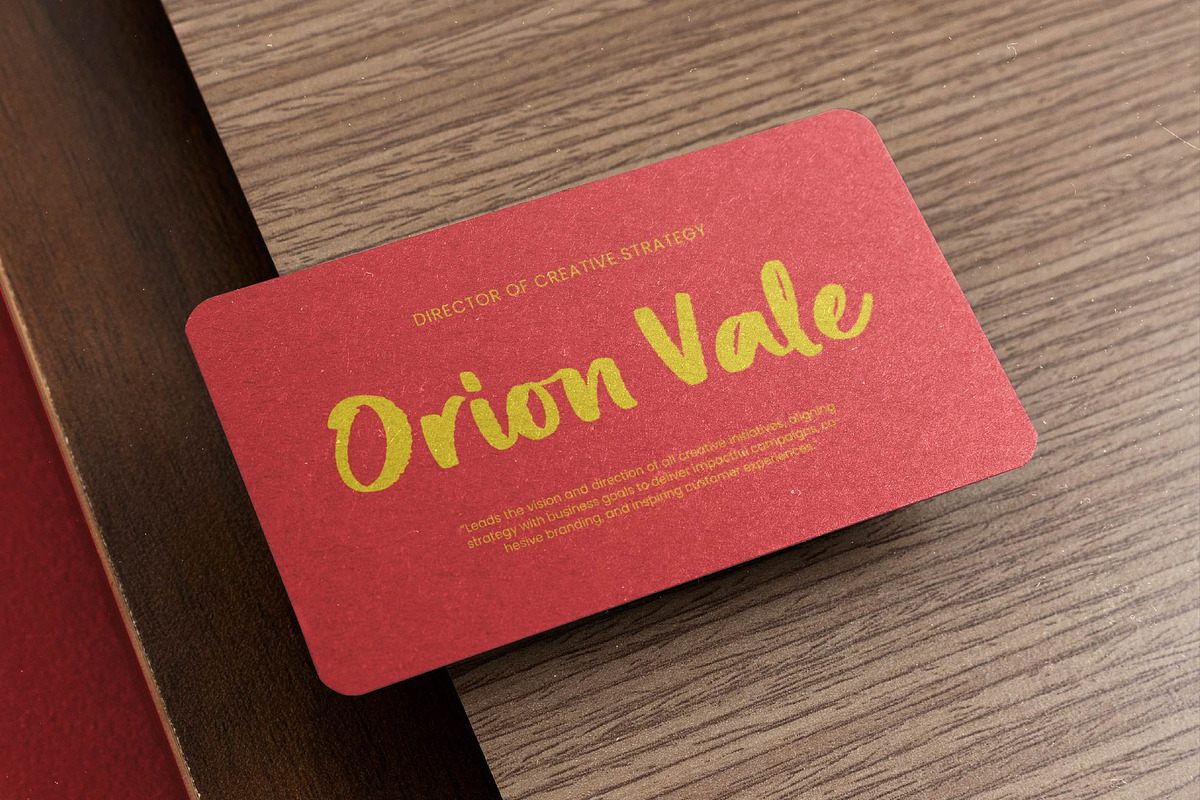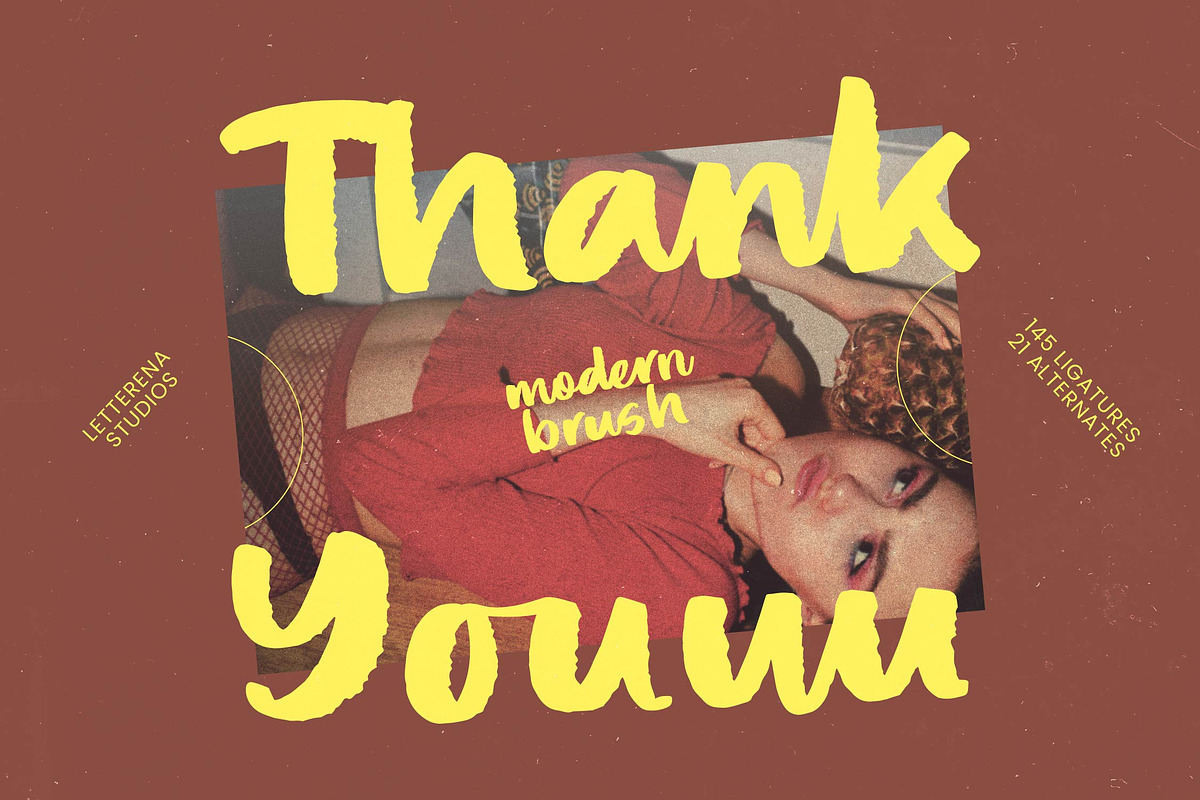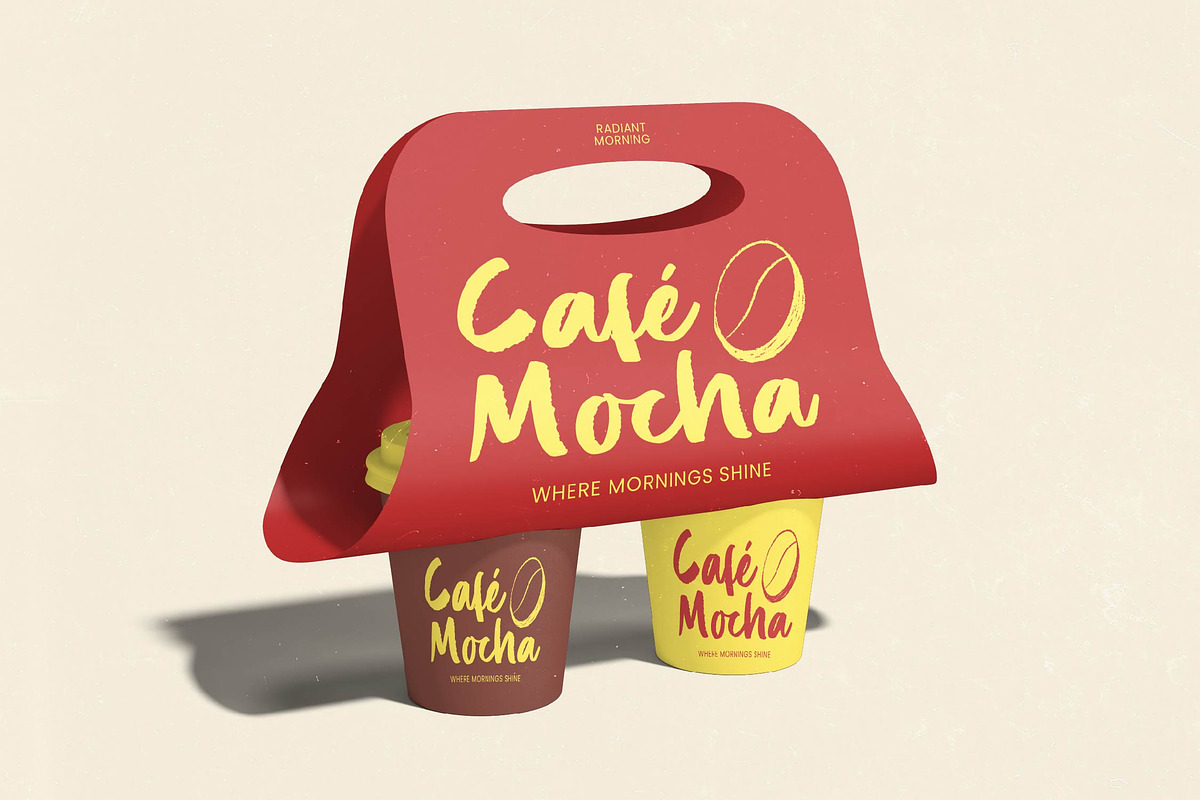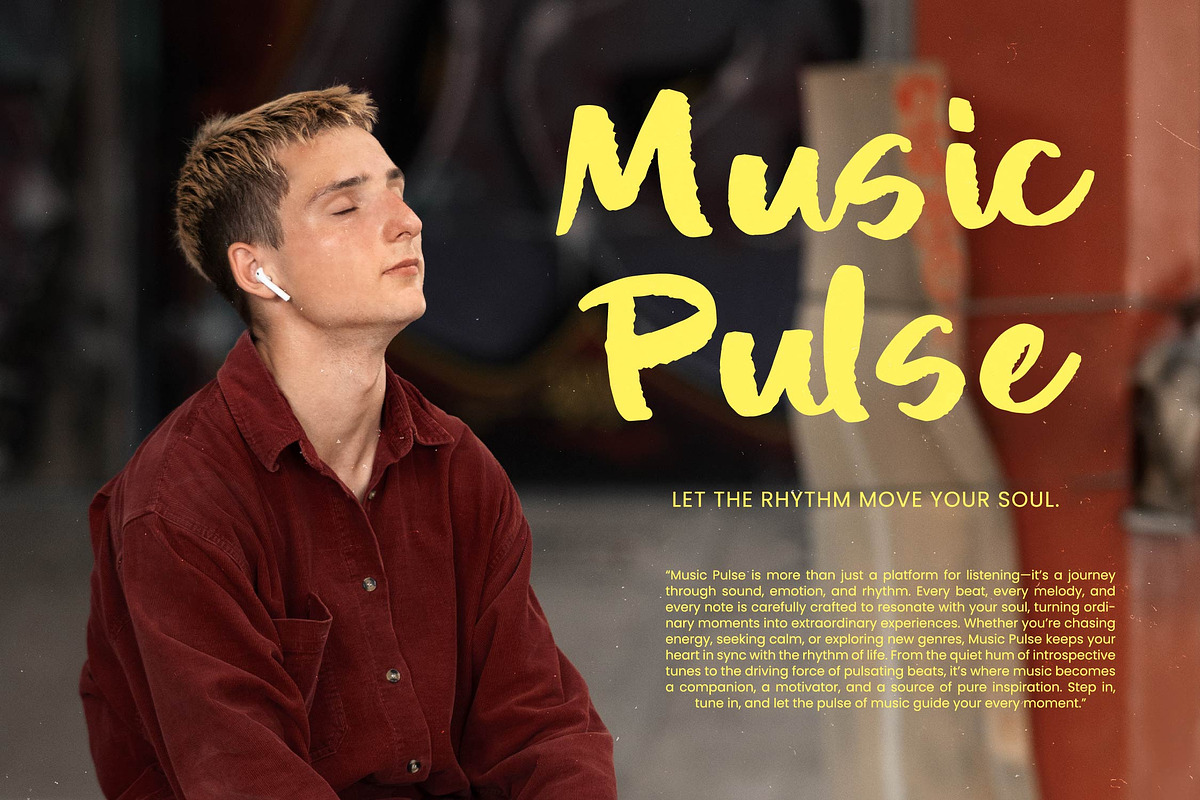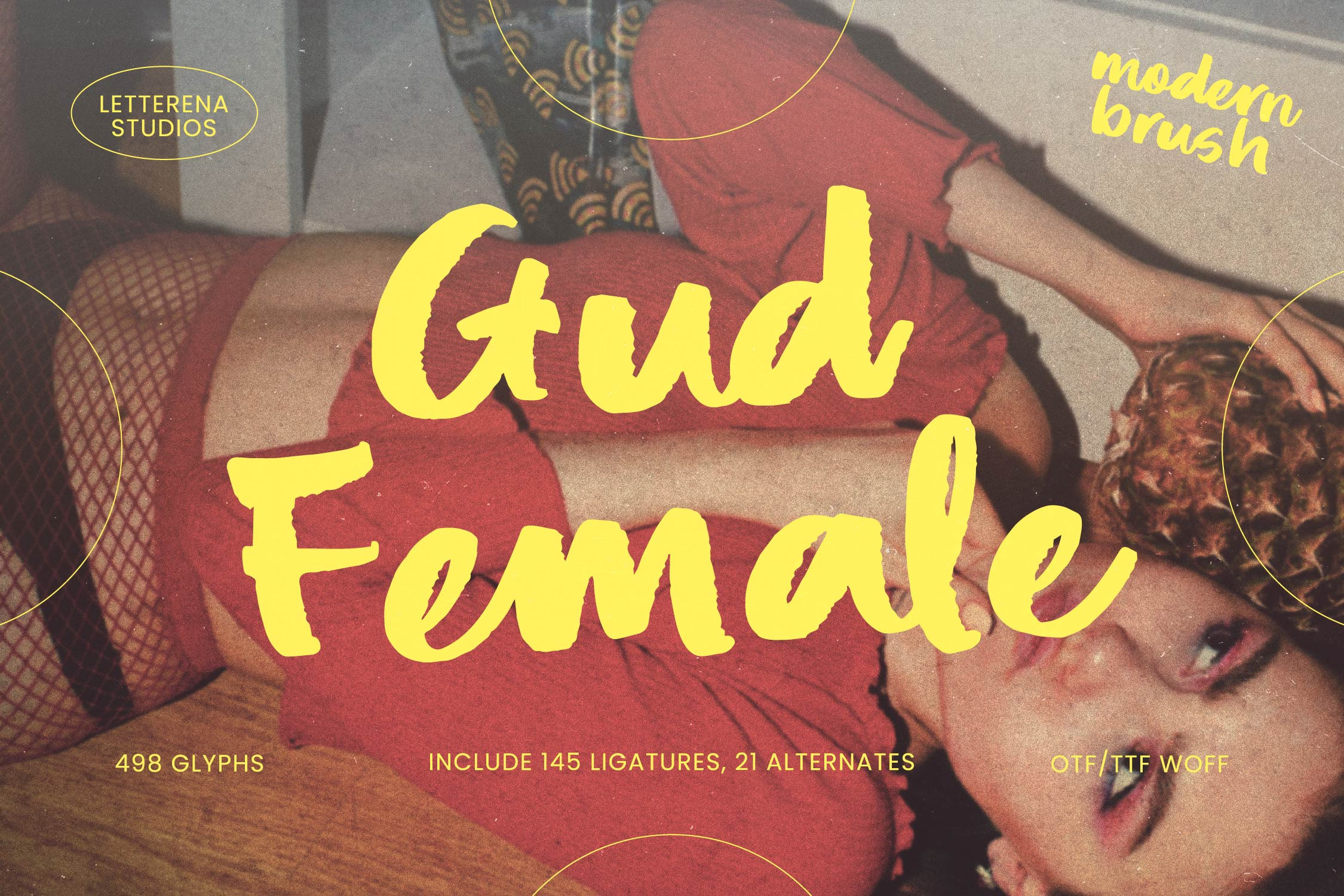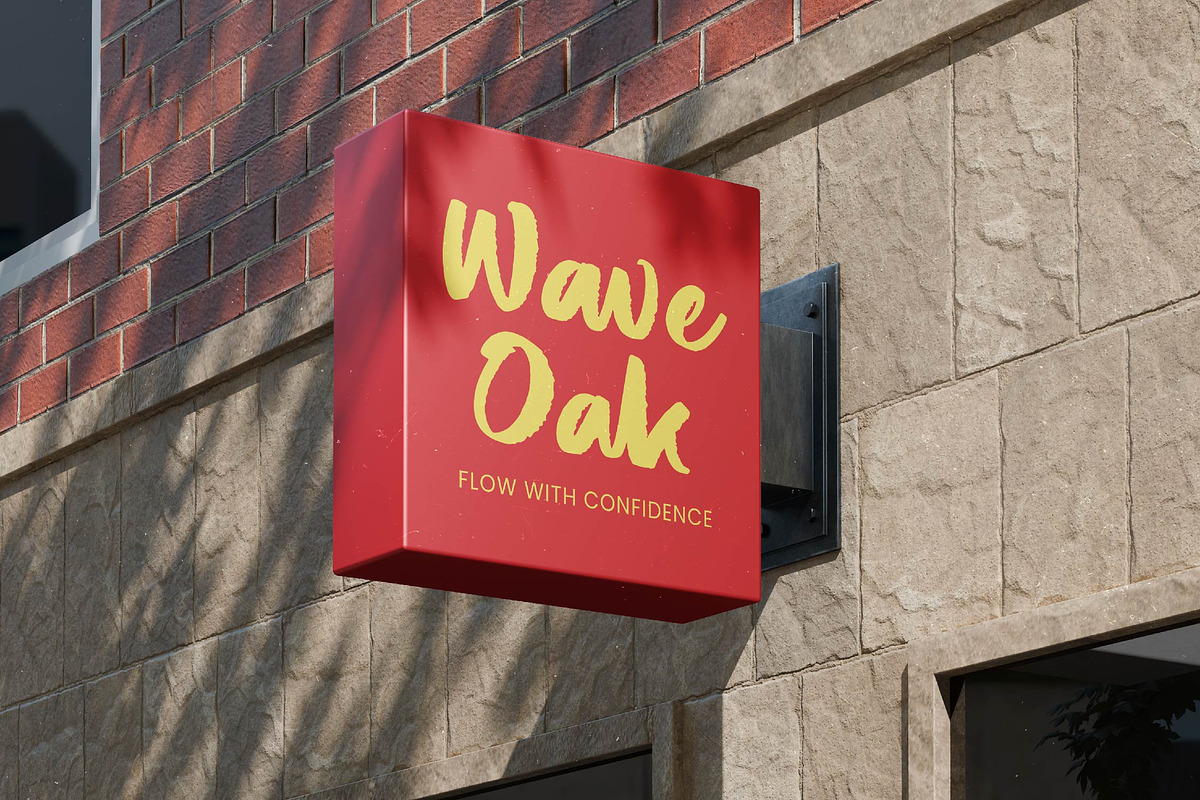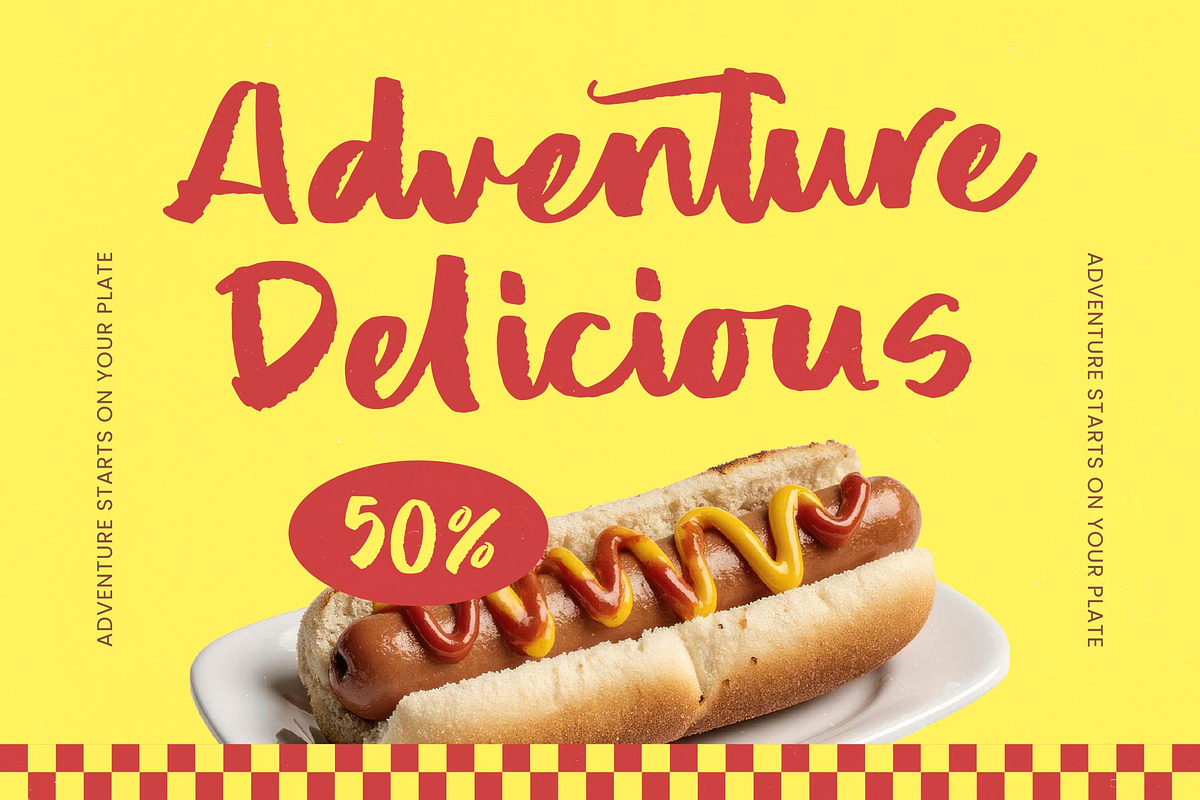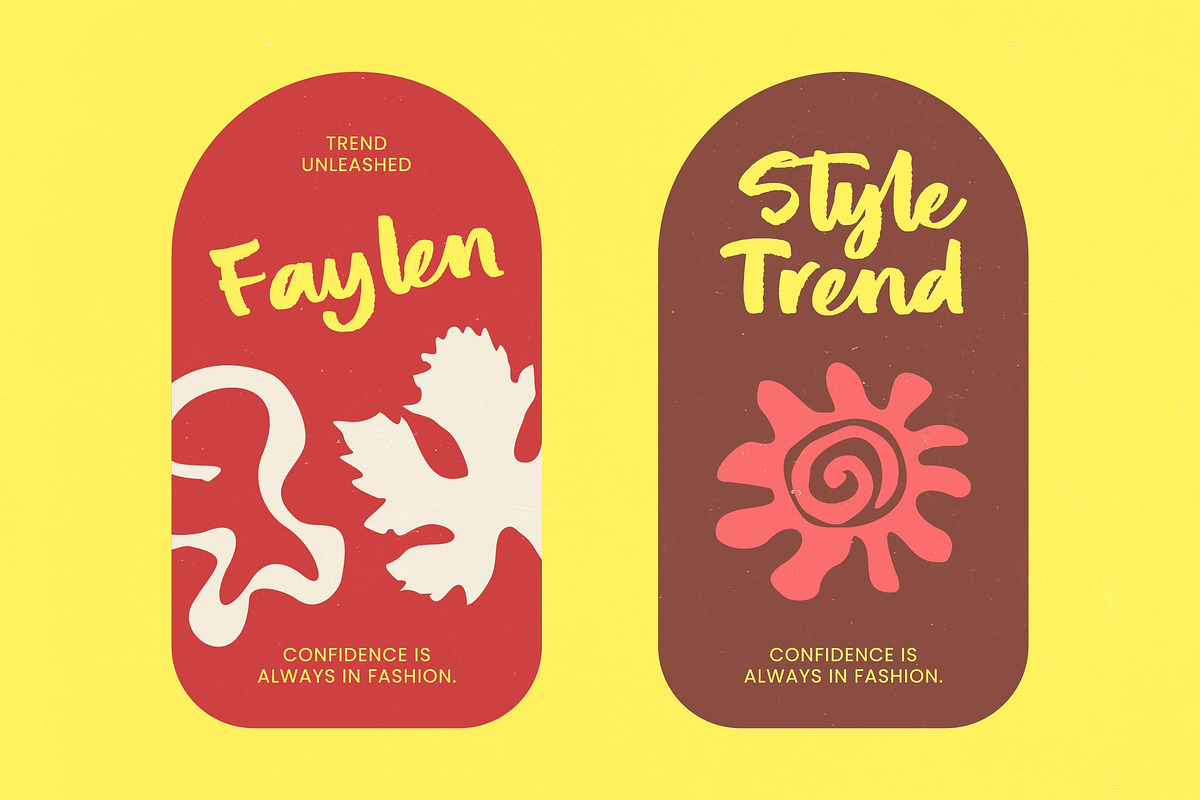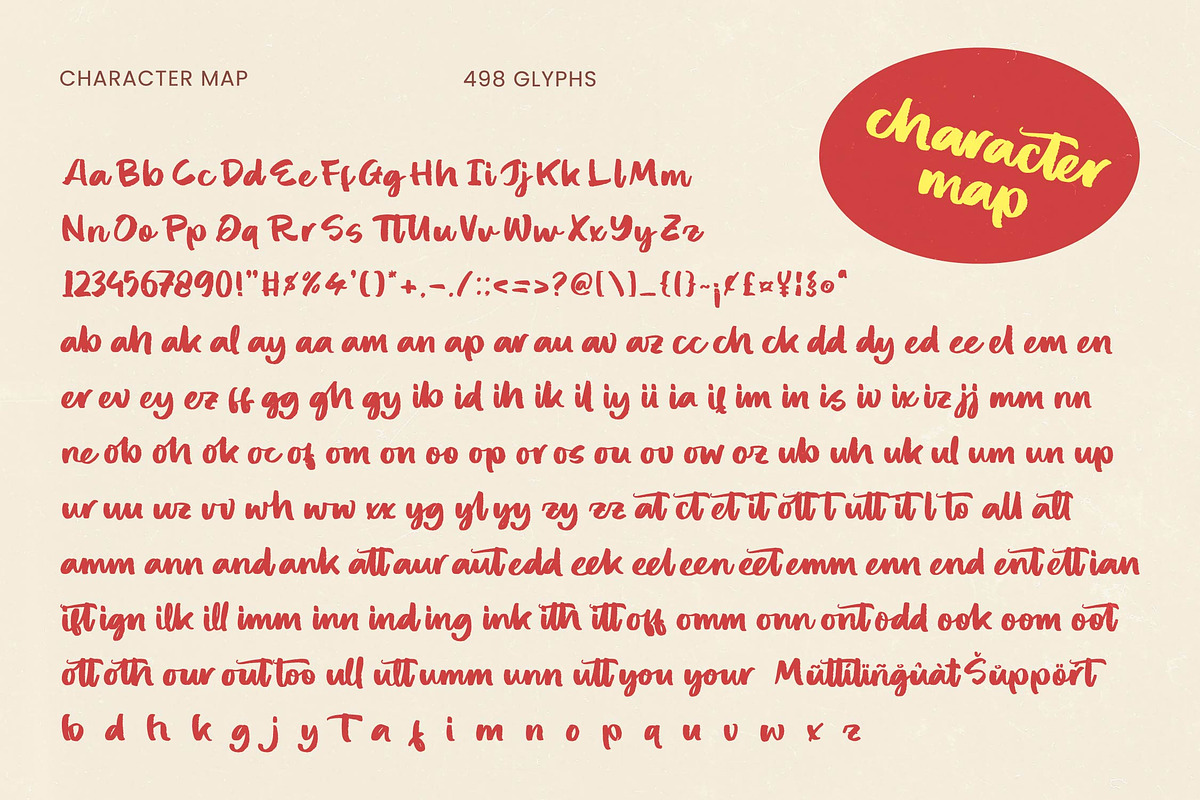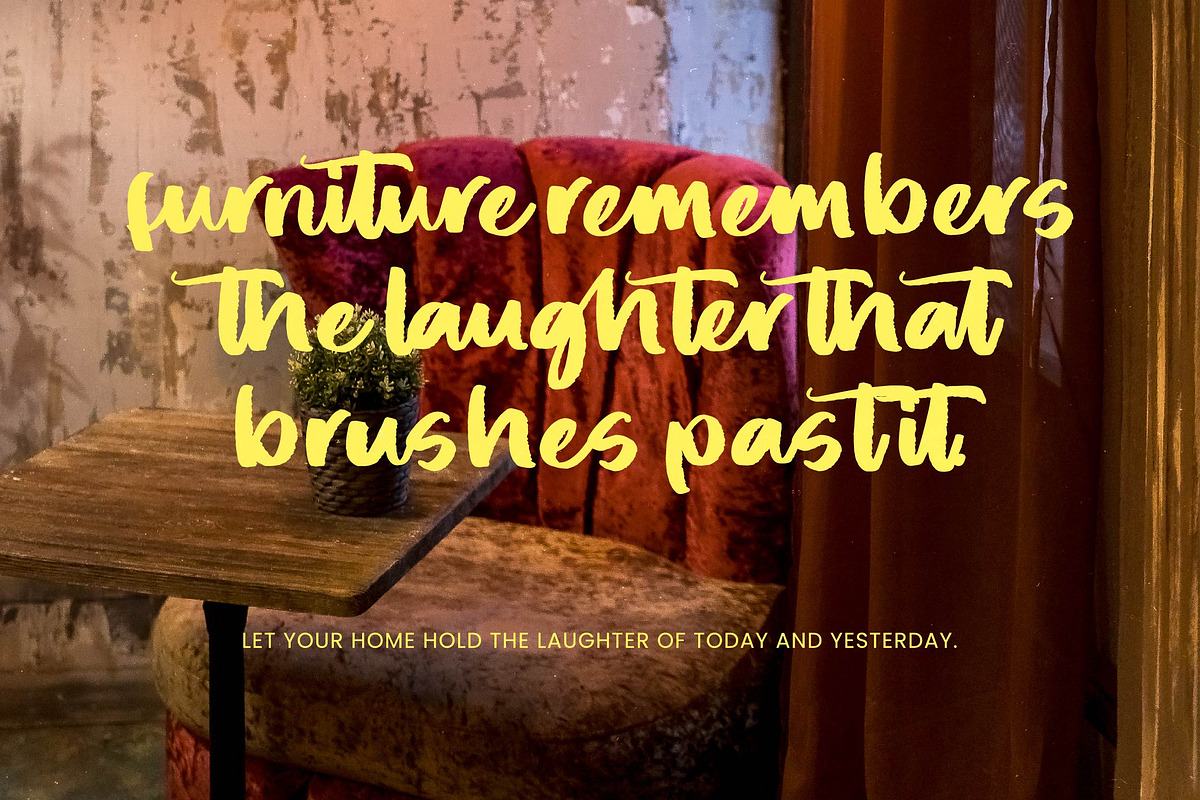
Gud Female Modern Brush Font
Gud Female - Modern Brush Font
Elevate your creative vision with the striking energy of Gud Female - Modern Brush Font. This typeface embodies a modern aesthetic characterized by authentic brushstrokes and an organic flow that commands immediate attention. Designed for those who seek to break away from conventional typography, Gud Female - Modern Brush Font offers a bold personality and a contemporary edge, making it an indispensable tool for visual storytelling in a competitive, fast-paced commercial market.
Unmatched technical versatility is at the core of this professional typeface. Featuring an expansive library of 498 glyphs and over 140 ligatures, it provides designers with a hand-crafted feel that remains polished and highly legible. With its extensive multilingual support, Gud Female - Modern Brush Font adapts seamlessly across global markets, making it incredibly versatile for international projects. This level of typographic detail ensures that your brand identity remains consistent and impactful across diverse linguistic landscapes.
Perfect for high-impact branding, this typeface is the ultimate solution for projects requiring a luxurious yet edgy touch. Gud Female - Modern Brush Font is perfect for premium packaging, fashion labels, and editorial design. Whether you are crafting social media content, magazine headlines, or custom apparel, its dynamic movement ensures your message resonates with a sophisticated demographic looking for style and substance.
Transform your design workflow with a typeface that merges artistic expression with commercial functionality. Gud Female - Modern Brush Font is not just a font; it is a design statement that empowers creative directors to push creative boundaries. By choosing Gud Female - Modern Brush Font, you are investing in a versatile asset that guarantees a professional finish for trend-setting layouts, lifestyle photography overlays, and high-end advertising campaigns.